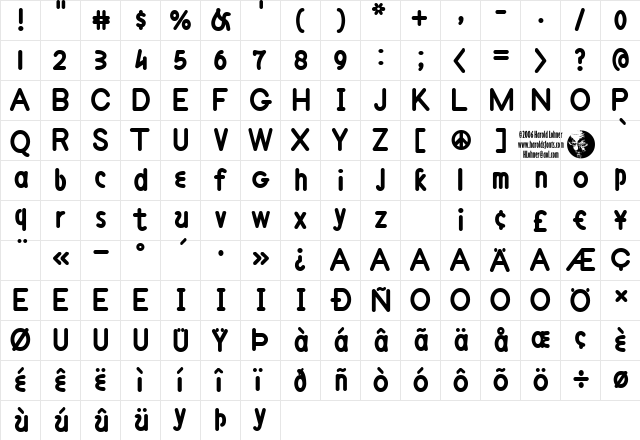
Philadelphia LineBold Regular
Design Context for Philadelphia LineBold Typeface
Philadelphia LineBold is a composed and adaptable typeface that performs quietly and consistently across a wide range of design contexts. Its bold stroke weight gives it real presence on the page.